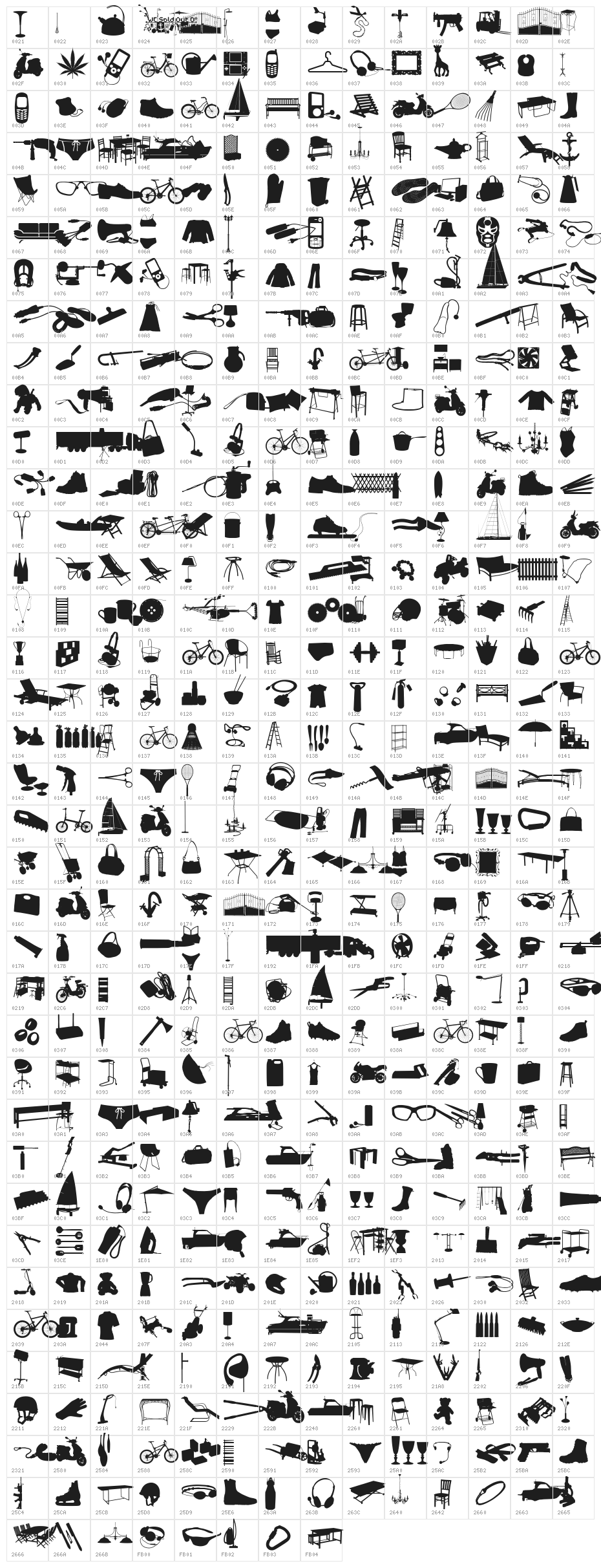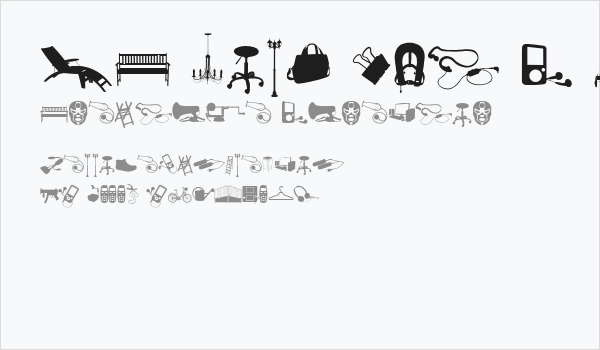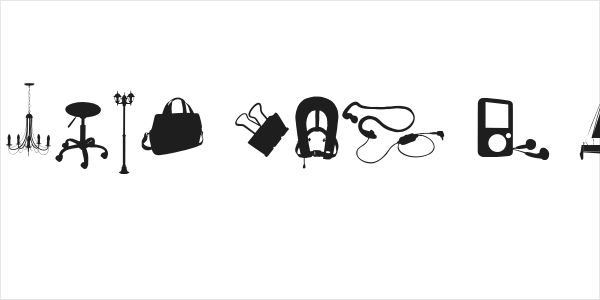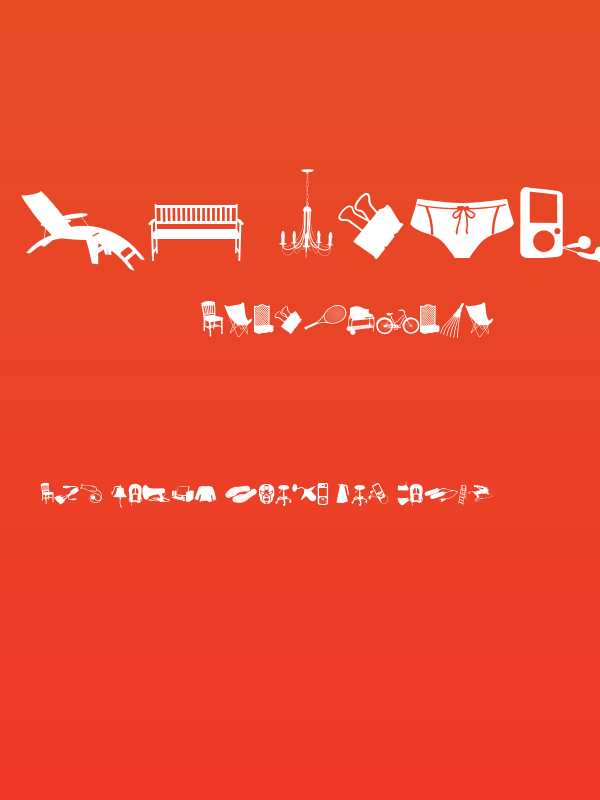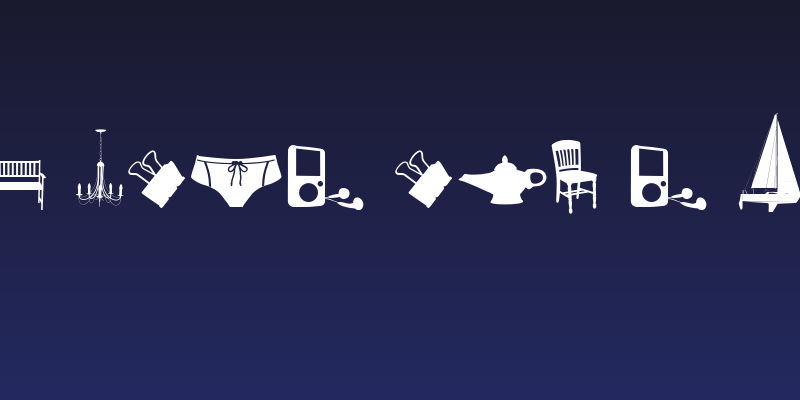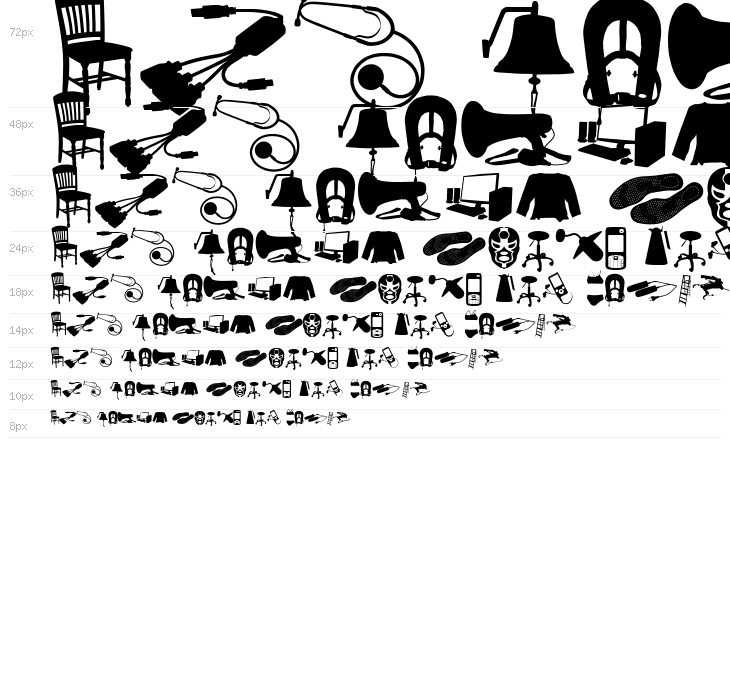
WC Sold Out D Bta Font
WC Sold Out D Bta Description
A pictogram-style dingbat set featuring a wide variety of black silhouette illustrations representing objects such as furniture, vehicles, tools, clothing, electronics, and miscellaneous items. Each glyph is a unique, detailed icon rather than a traditional alphanumeric character.
| Overall Style | Decorative, Modern, Pictogram |
| Use Case | Icons, visual aids, posters, creative layouts, non-verbal communication. |
| Proposed Projects | Infographics, signage, educational materials, icon sets, visual communication aids. |